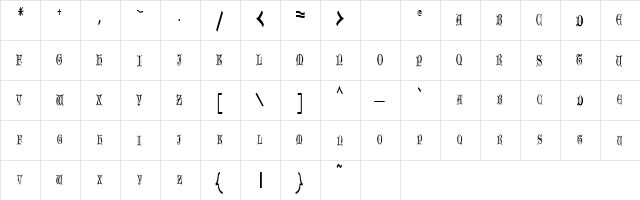
Older Regular Normal Font Preview
Older Regular Normal
Design Context for Older Regular Typeface
Older Regular is a composed and adaptable typeface that performs quietly and consistently across a wide range of design contexts.